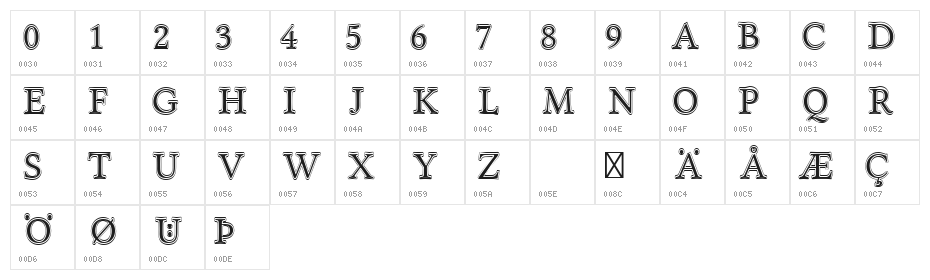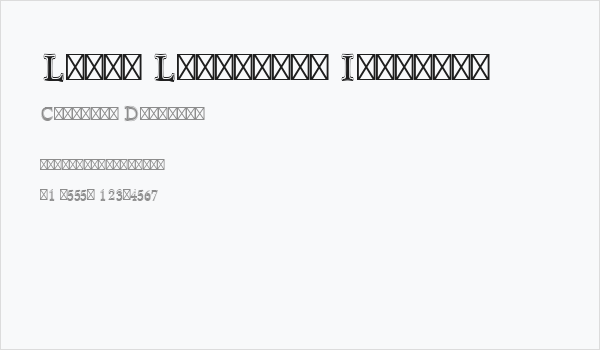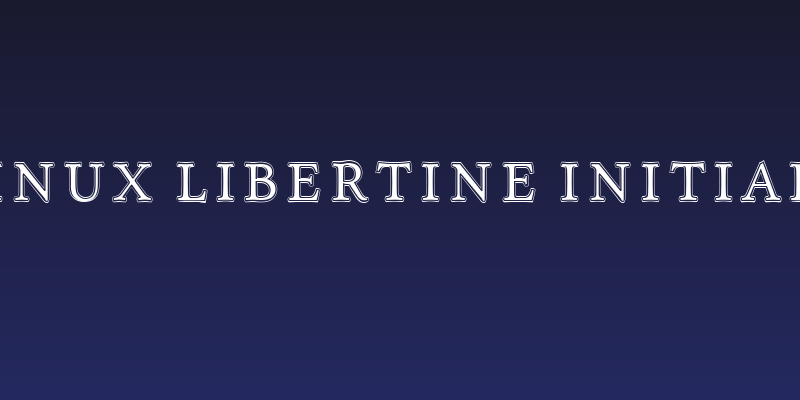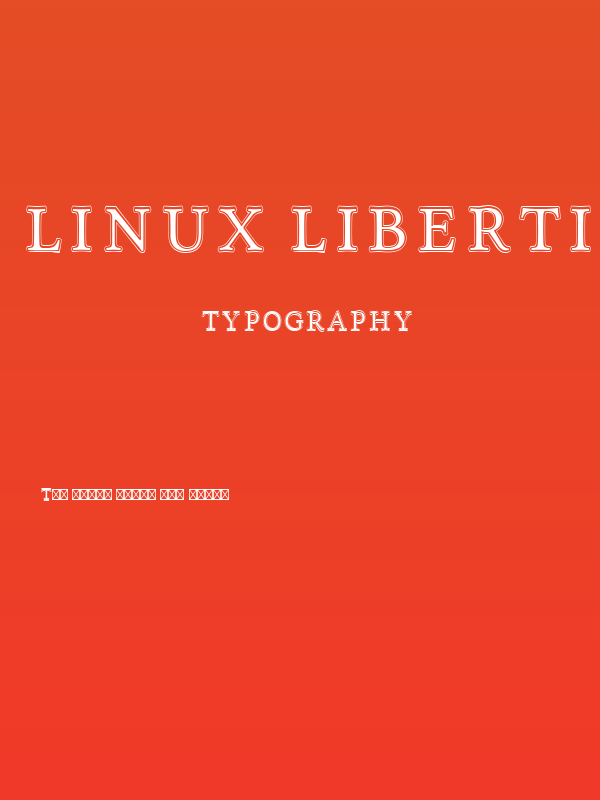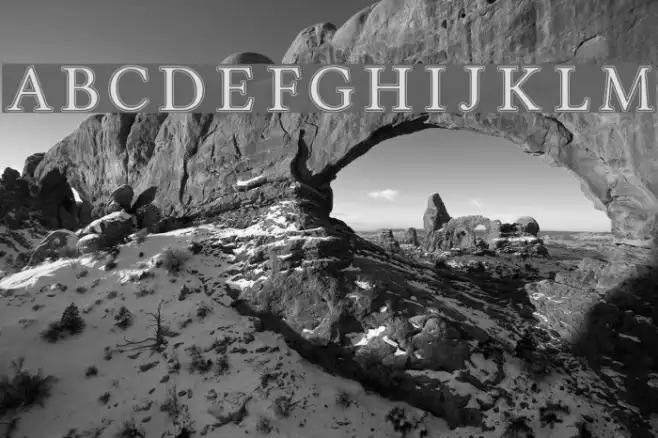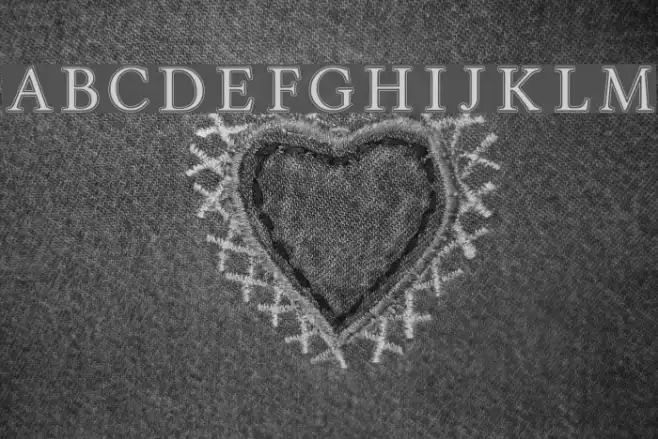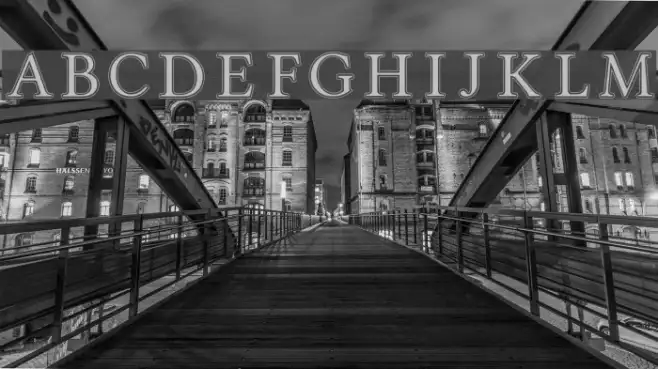
Linux Libertine Initials Font
Linux Libertine Initials Description
This font features a classic serif style with a distinctive double-line outline that gives it a bold and elegant appearance. The characters are well-proportioned, with a traditional serif structure that enhances readability while adding a touch of sophistication. The uppercase letters are particularly striking, making them ideal for use in titles or headings. The numerals are clear and consistent with the overall style, maintaining the same double-line outline. This font's unique design makes it suitable for projects that require a blend of tradition and modernity.
| Proposed Projects | Ideal for book covers, formal invitations, branding, and editorial design. |